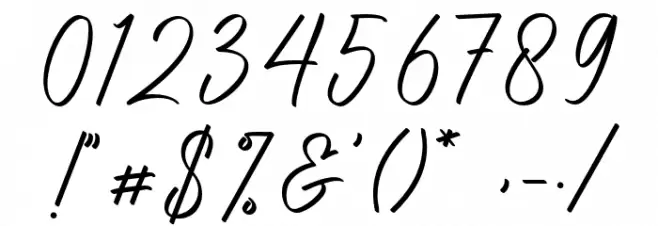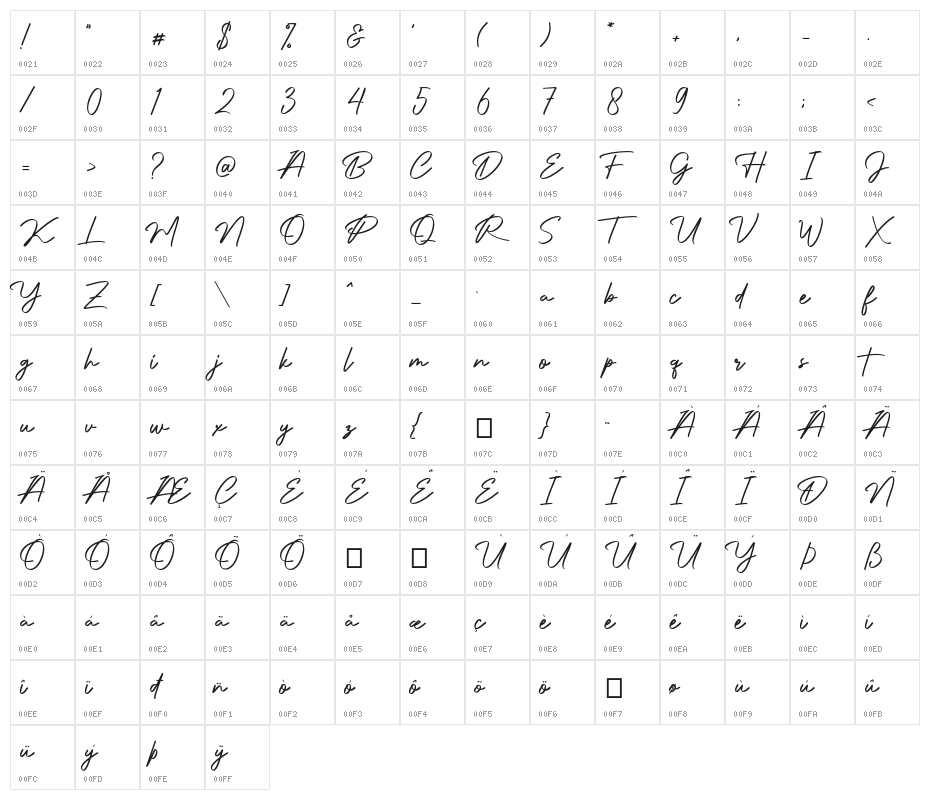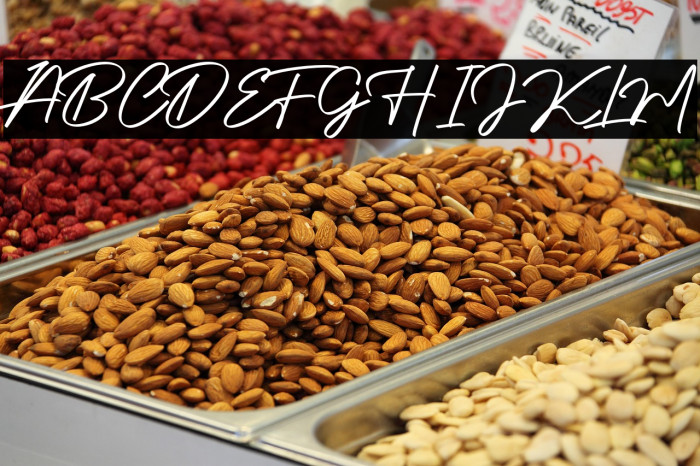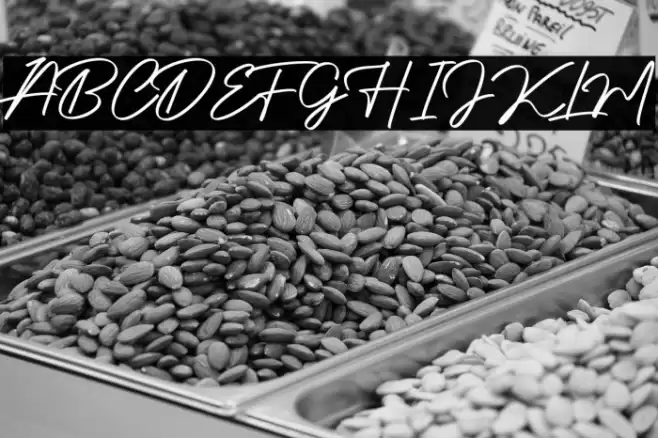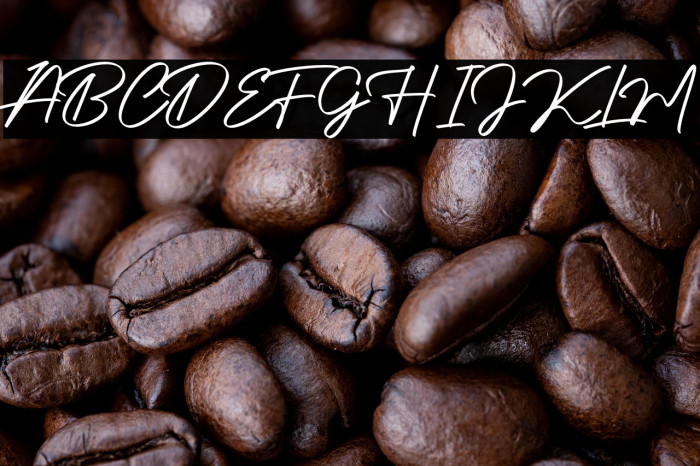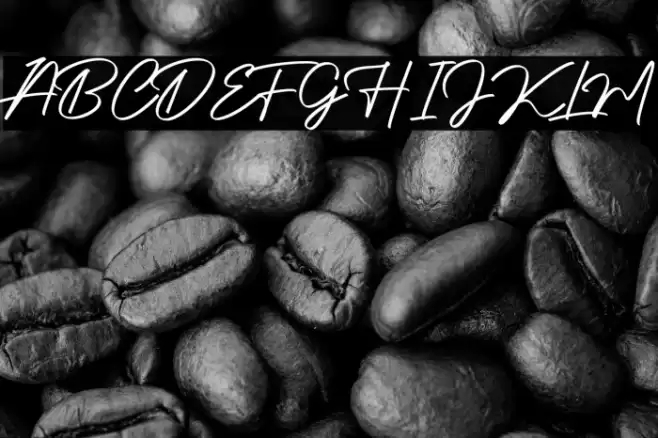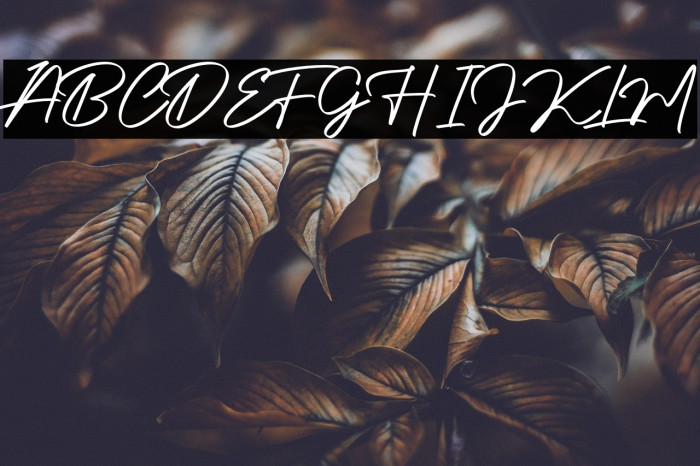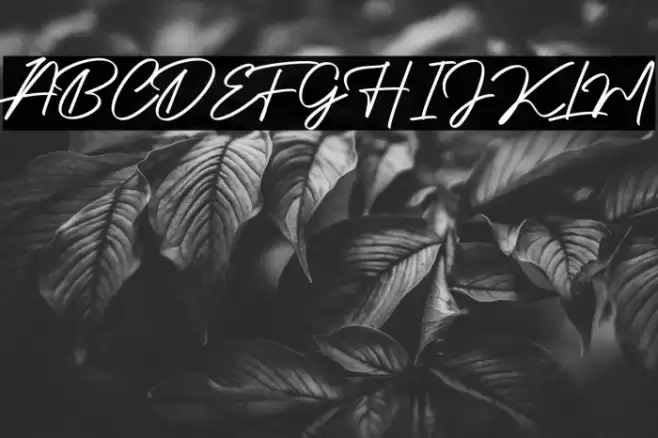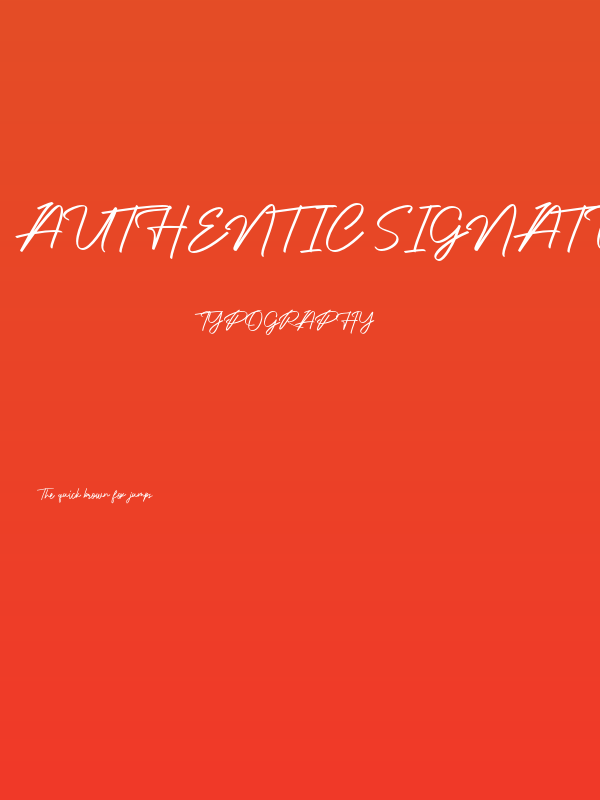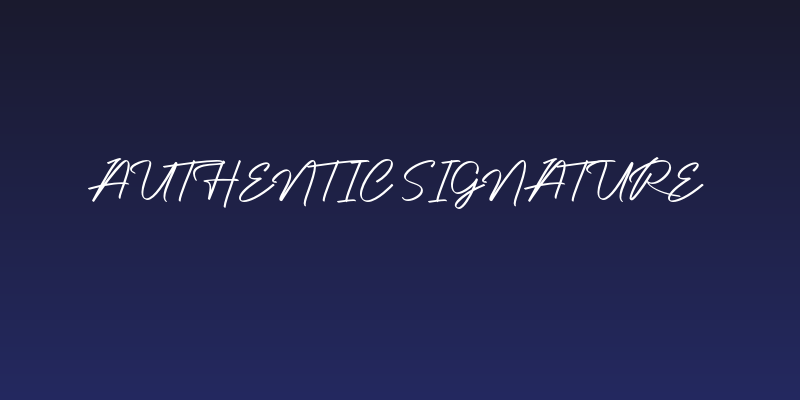
Authentic Signature Font
Authentic Signature Description
This font exudes a sense of elegance and fluidity, reminiscent of a personal handwritten signature. The characters are connected with smooth, flowing lines that give it a cursive appearance. The uppercase letters are slightly more embellished, while the lowercase letters maintain a consistent, graceful style. Numbers and special characters are designed to match the overall aesthetic, ensuring a cohesive look. The font's design is both sophisticated and approachable, making it suitable for a variety of creative applications.
| Proposed Projects | Ideal for wedding invitations, personal branding, greeting cards, and logo design. |